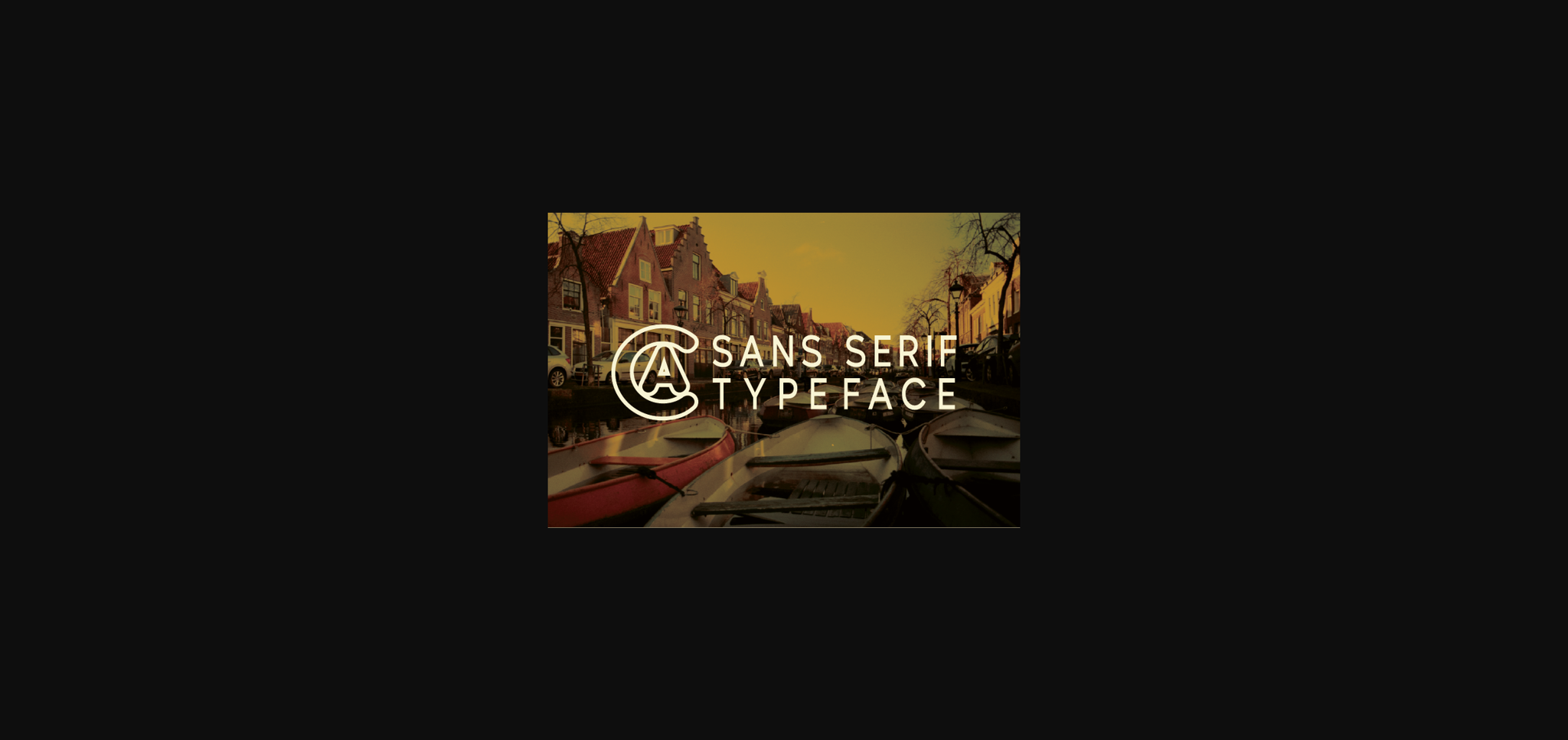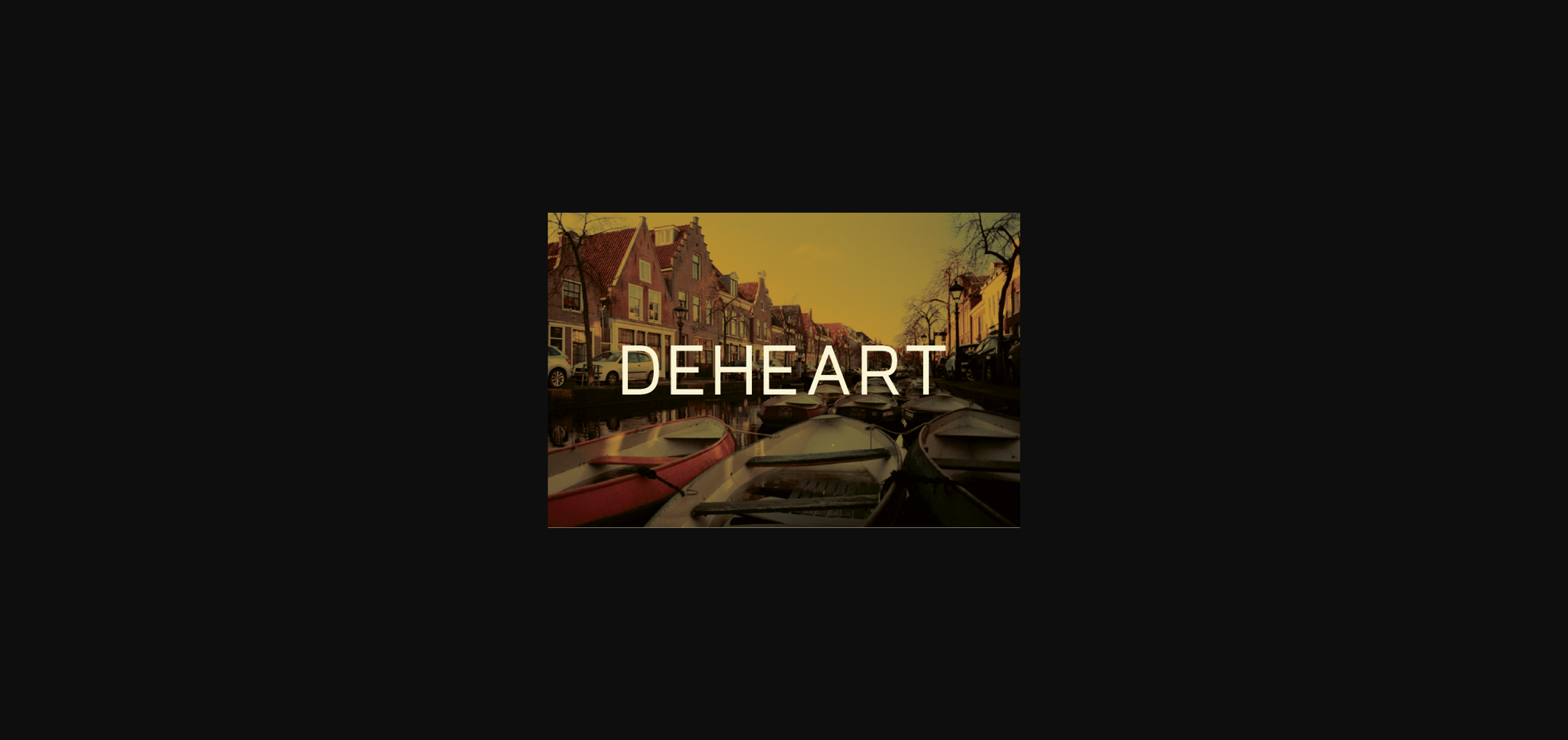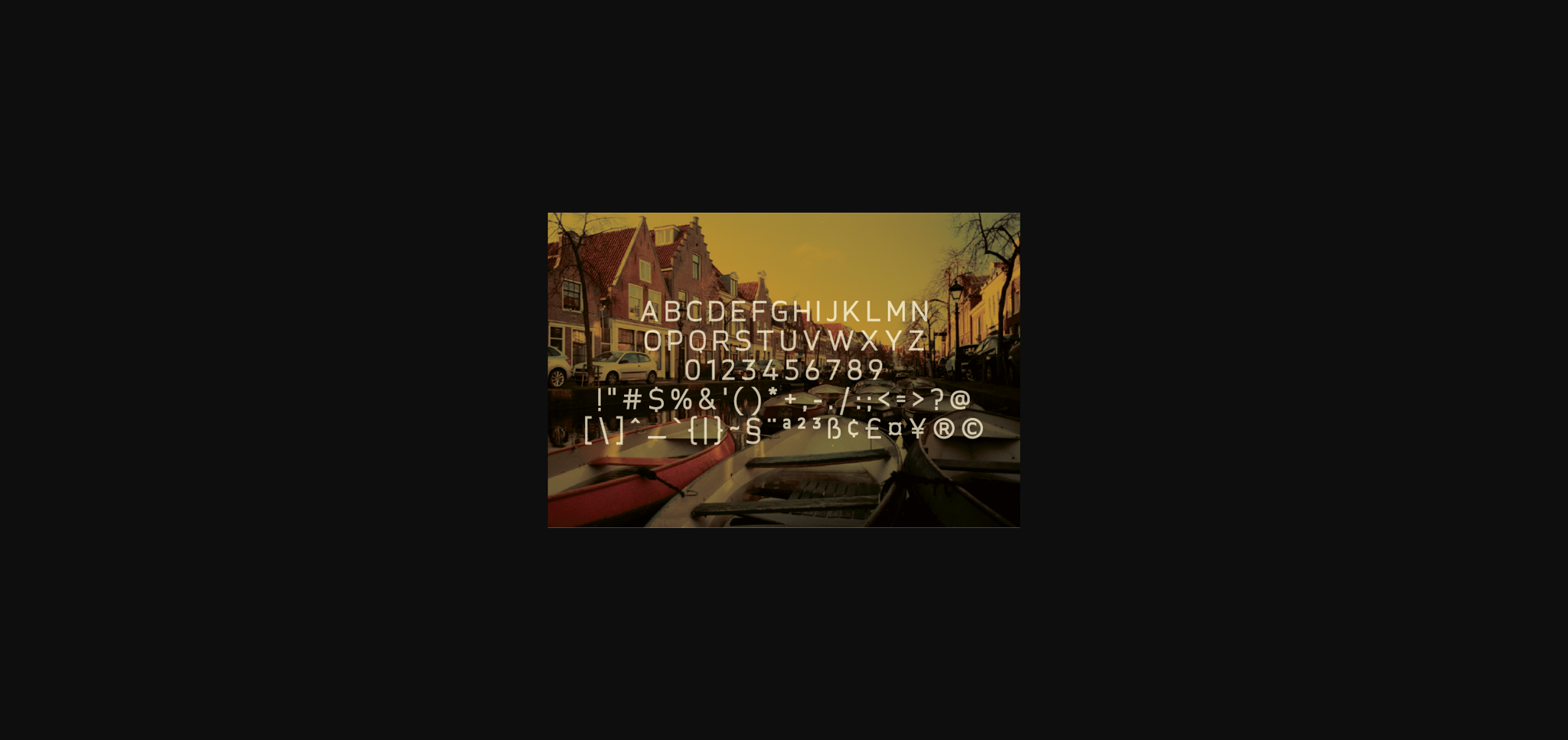
Deheart is an authentic, clean and versatile sans serif font. Suitable to a wide variety of designs due to its neat style, this font has the potential to become your go-to font, no matter the occasion!